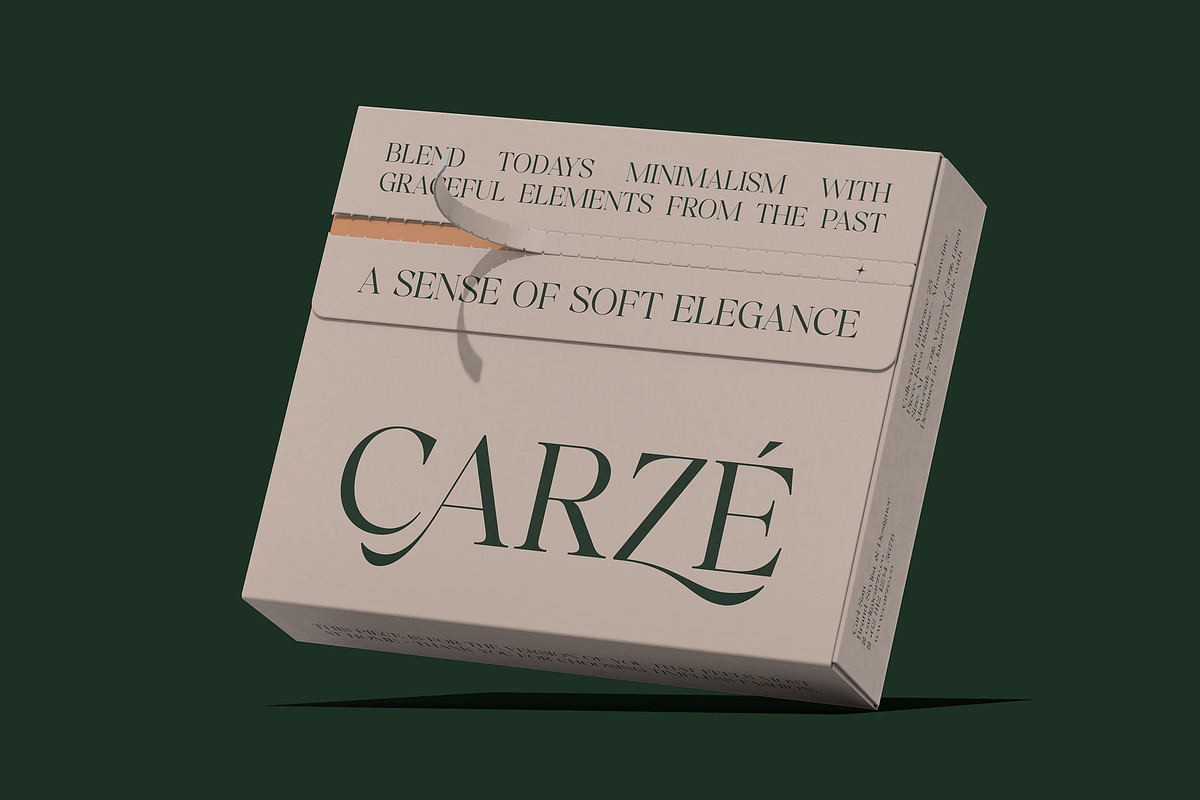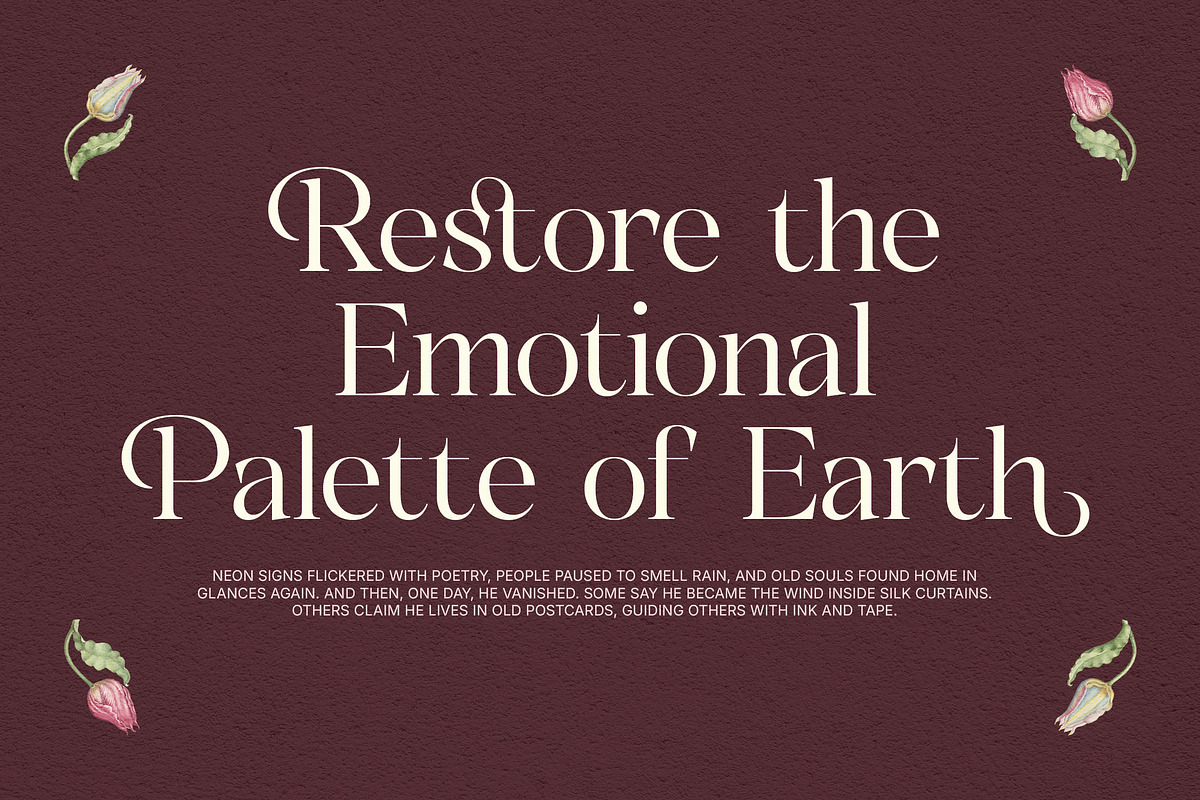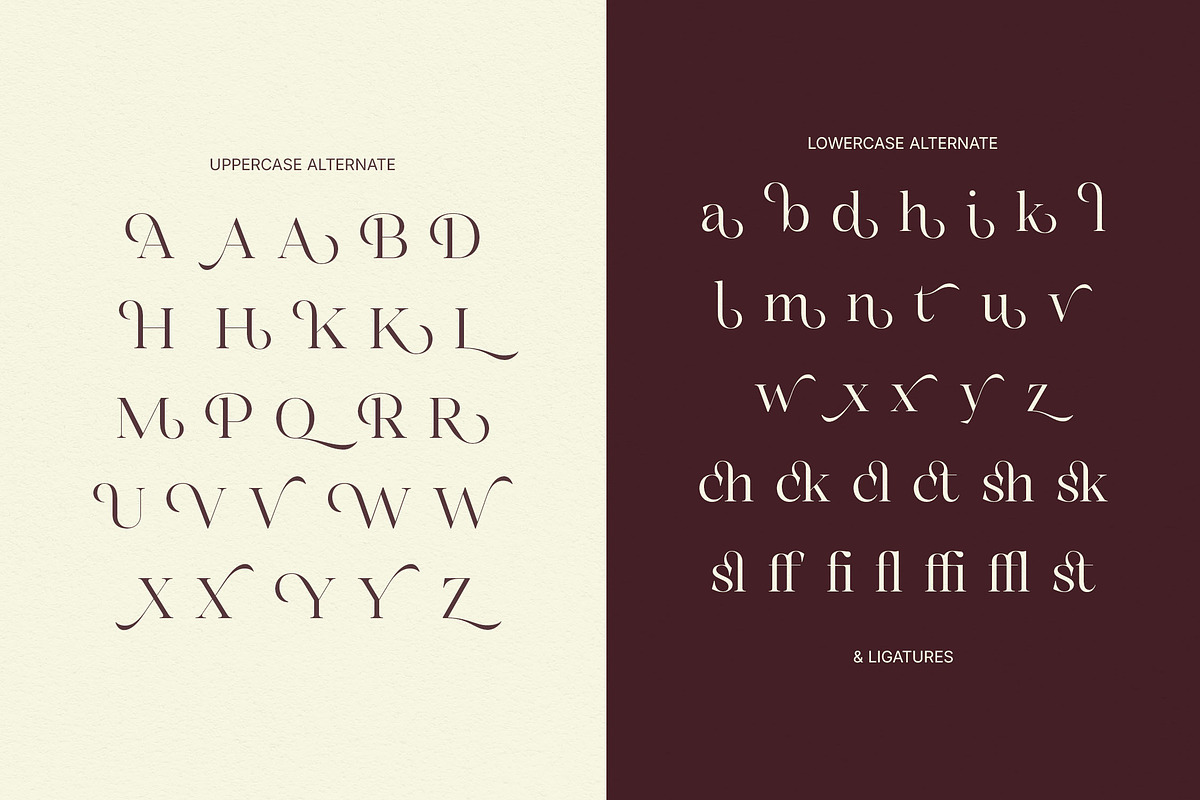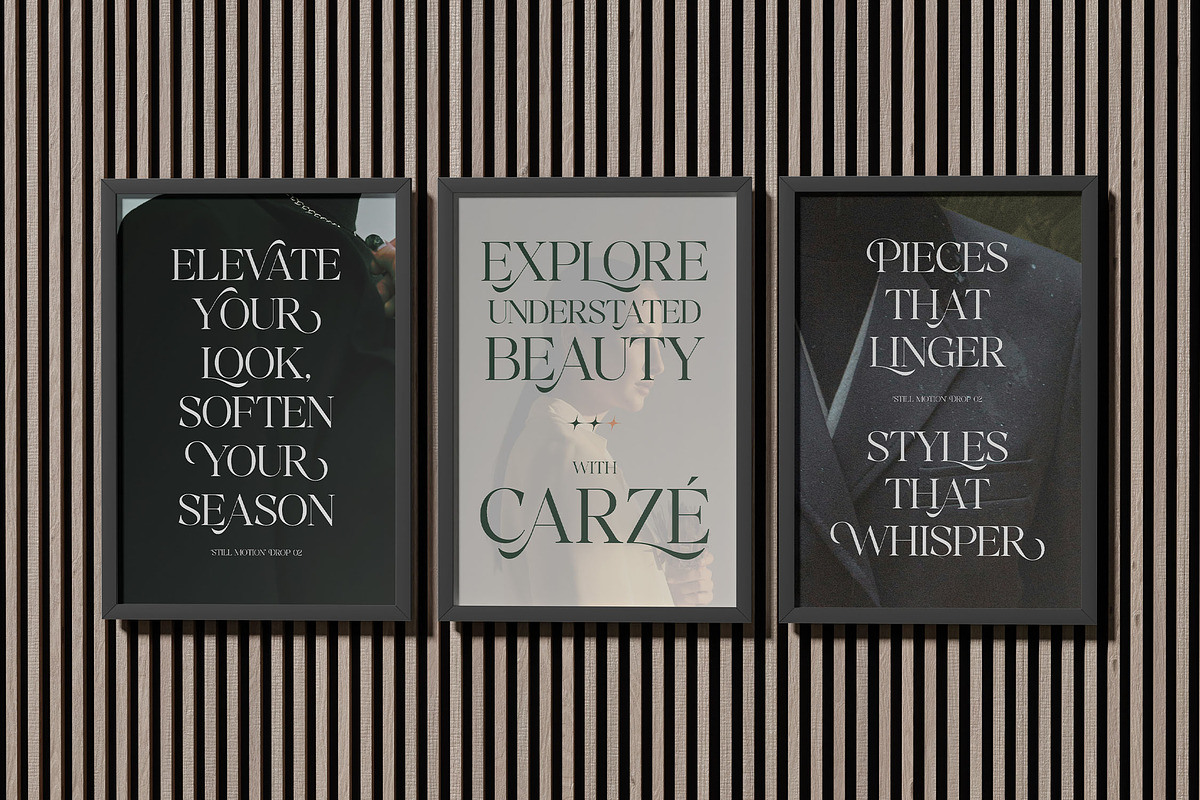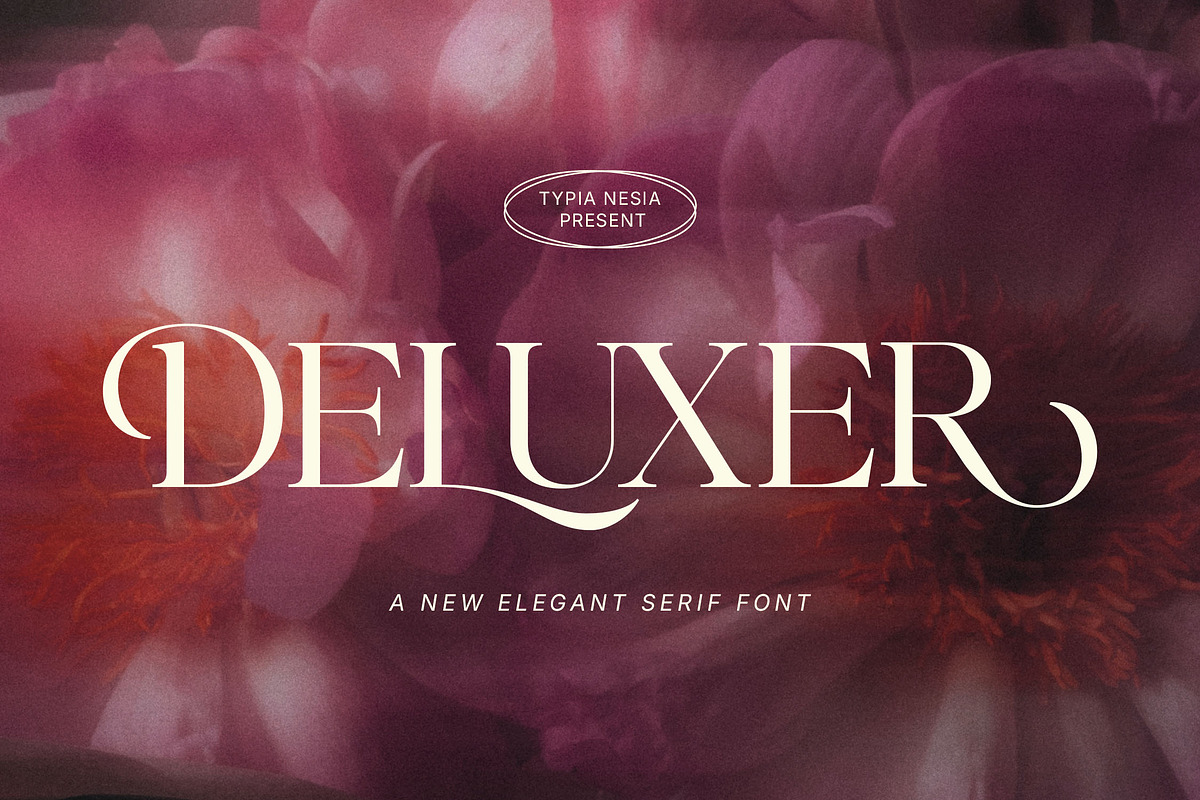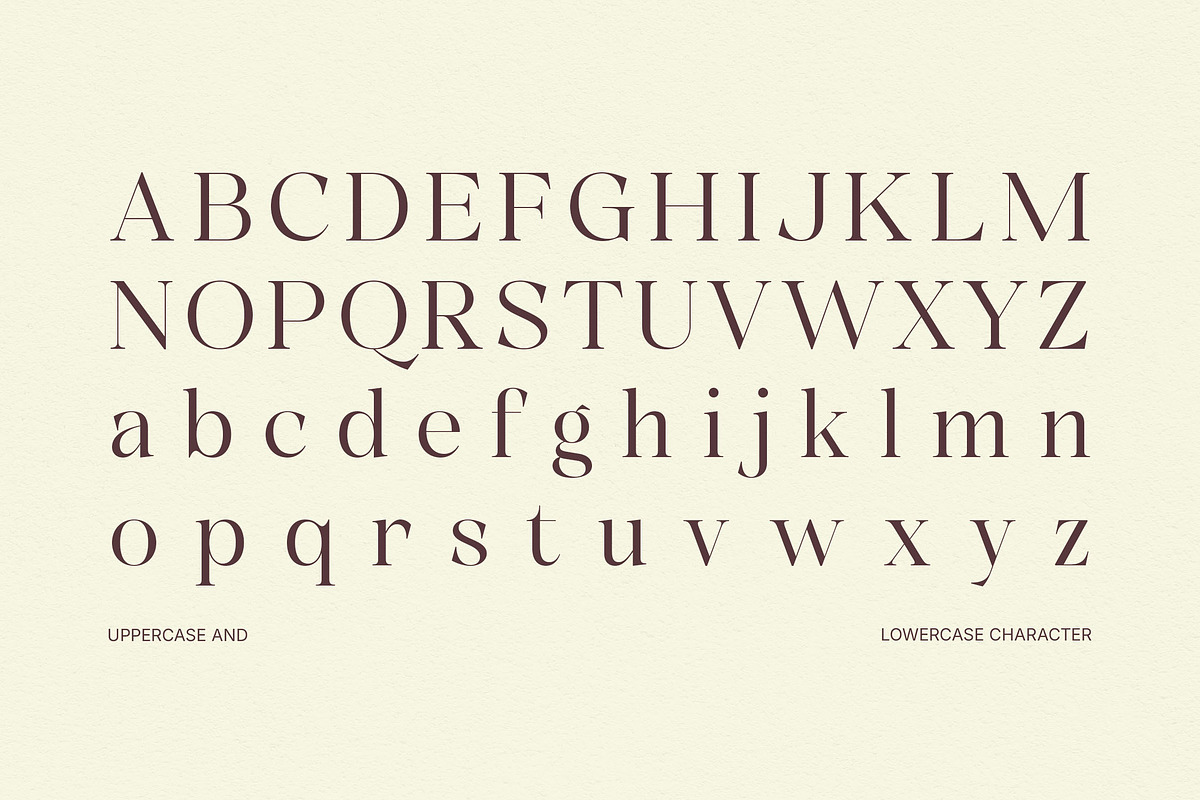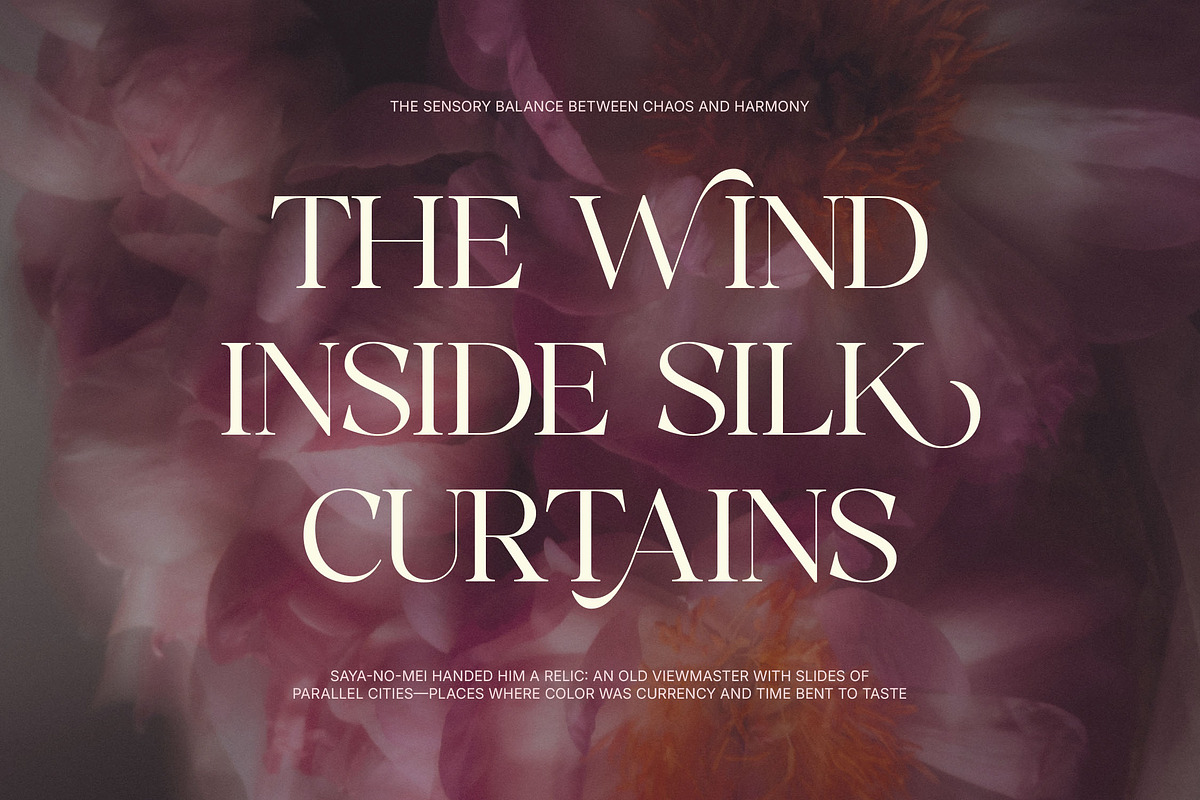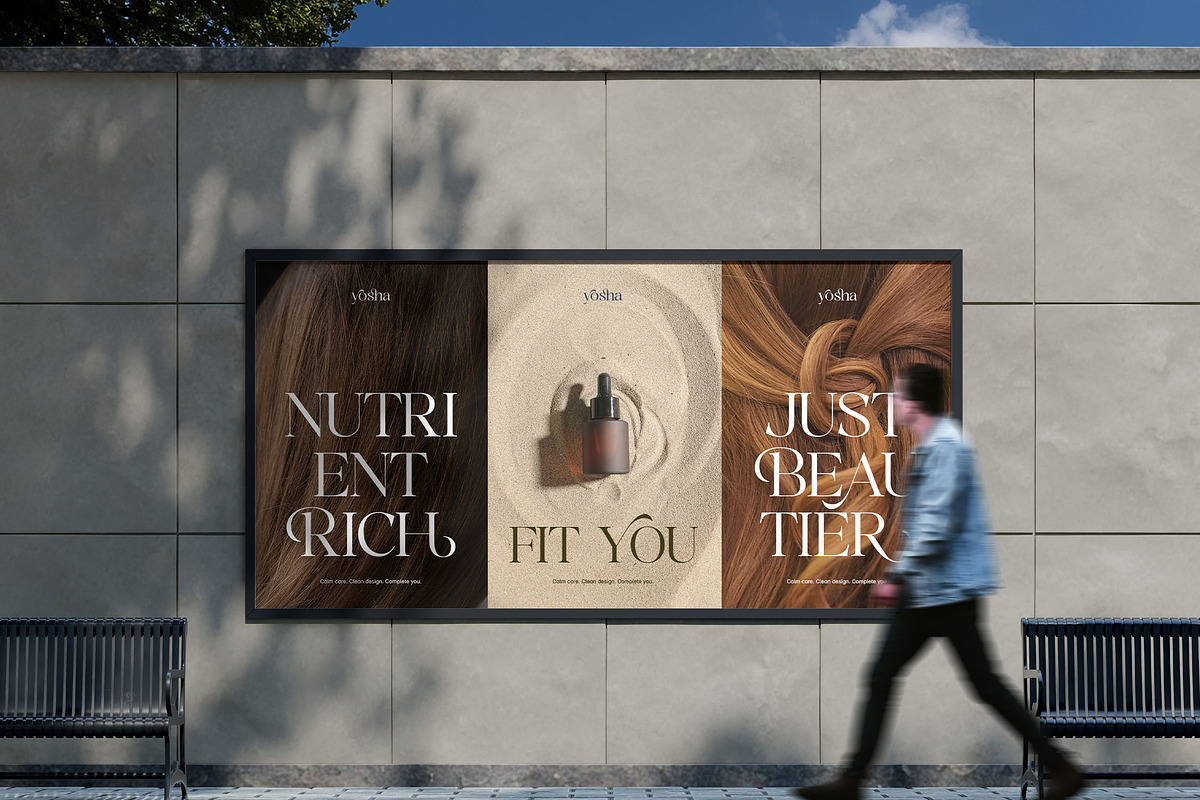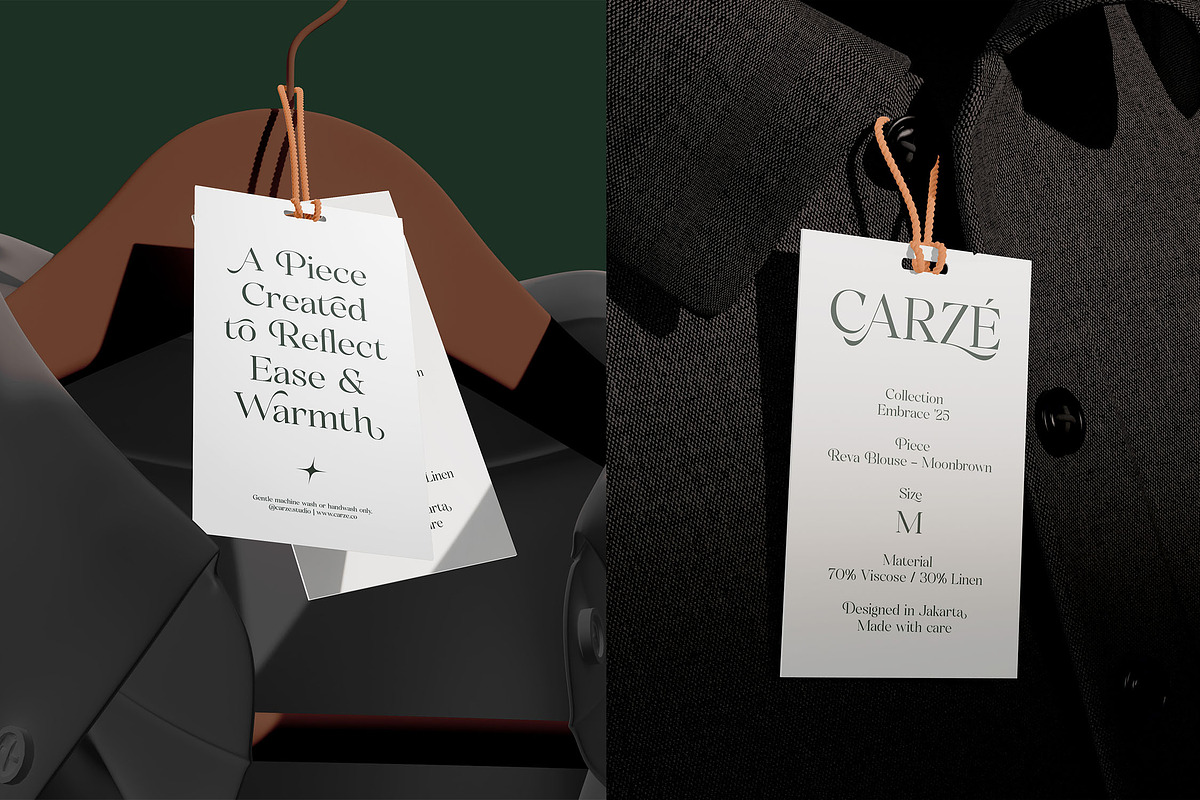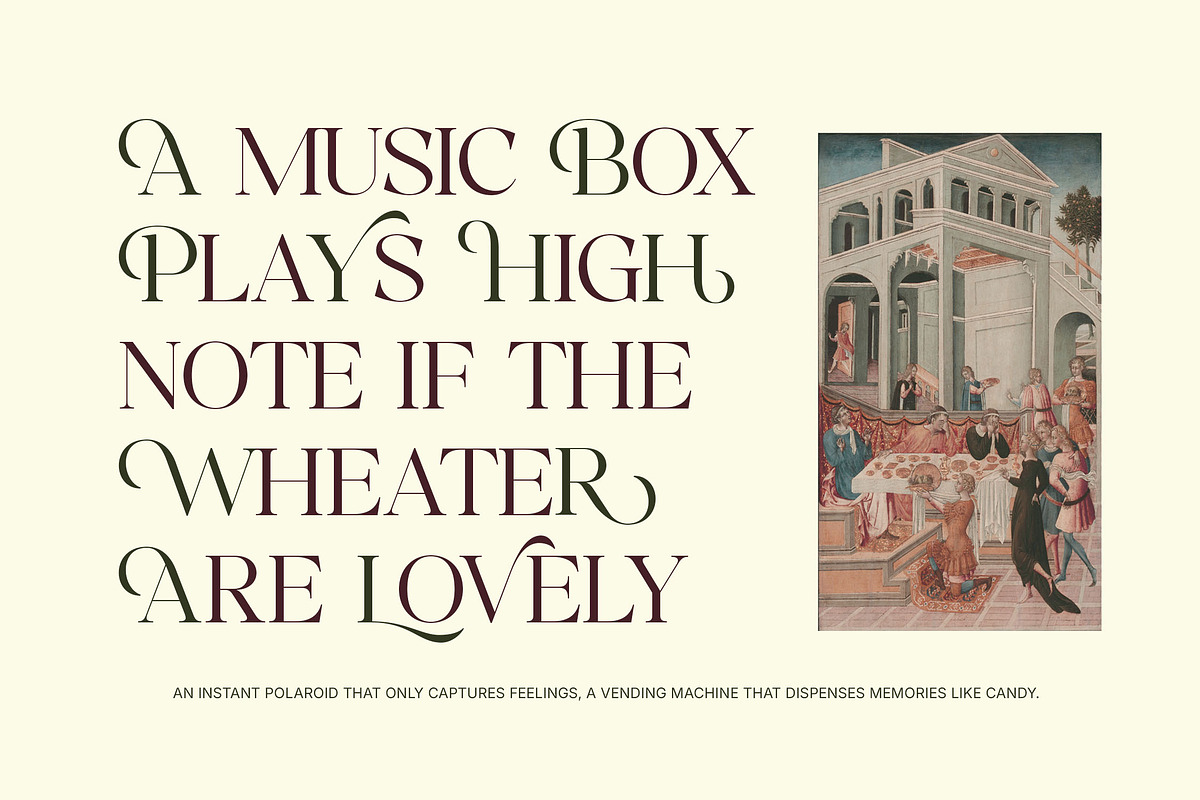
Deluxer - Elegant Modern Serif
Deluxer - Elegant Modern Serif Typeface - Beauty Stylish Luxury High-End Fashion & Branding.
Deluxer is elegant modern serif font designed to exude luxury and refinement. Characterized by its striking high contrast letterforms and graceful curves, it comes alive with a stunning array of luxury alternates and ligatures, offering exquisite typographic possibilities. Perfect for high-end fashion brands, beauty products, editorial layouts, wedding invitations, poster, logo, advertising, and premium packaging, Deluxer adds an air of elegance and exclusivity, making every design feel truly luxurious and distinguished.